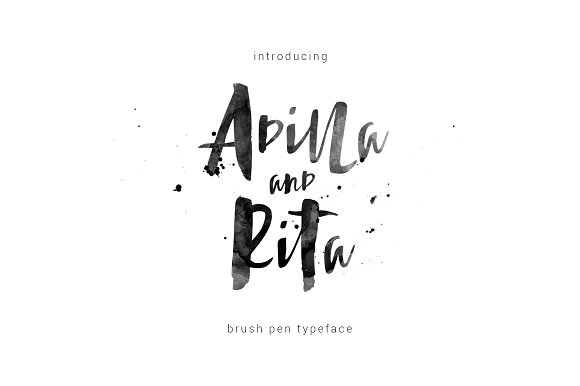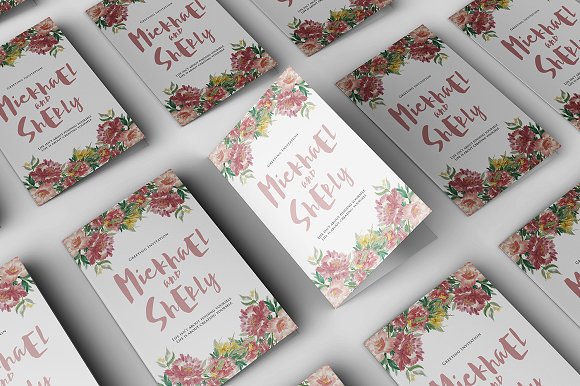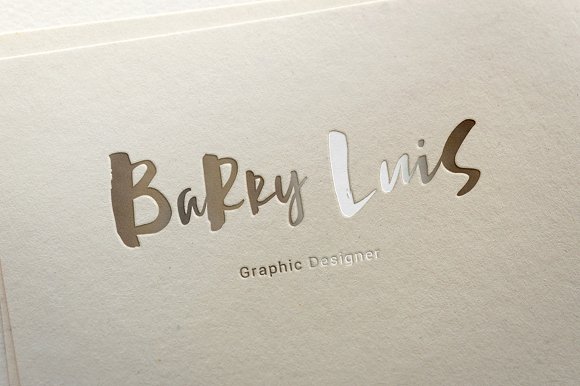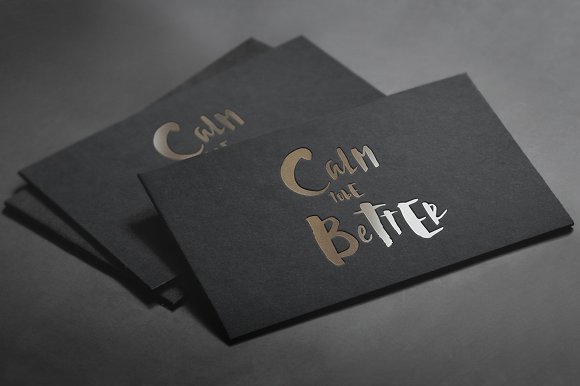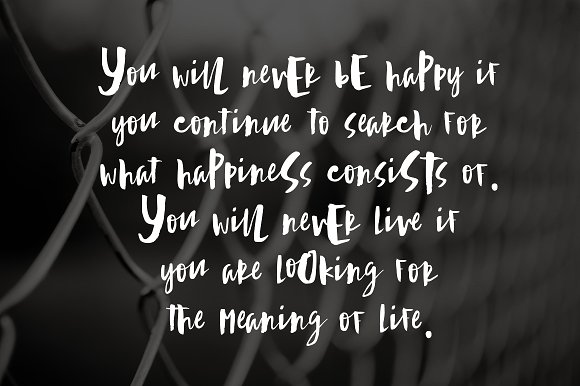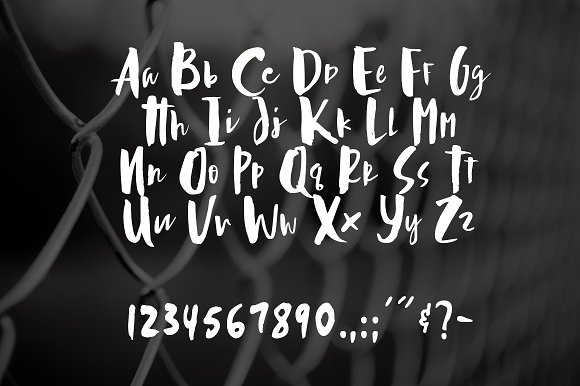
Adilla and Rita Font
About Adilla and Rita Font
Adilla and Rita is a simple and easy-going typeface that is perfect for ink and watercolor based designs. It also works very well on it’s own as a bold hand-brushed lettering font.